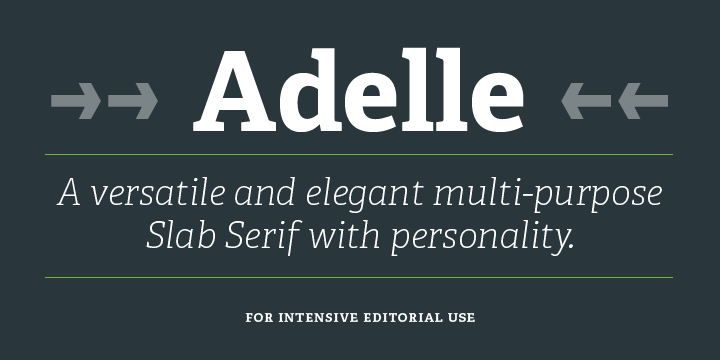
Adelle
Adelle is known to be a slab serif typeface designed specifically for rigorous editorial column usage such as in newspapers and magazines. The actual personality and flexibility of the font makes it a genuine multiple-purpose typeface. The intermediate weights work towards delivering a very comprehensible and neutral appearance especially when utilized in text sizes as … Read more